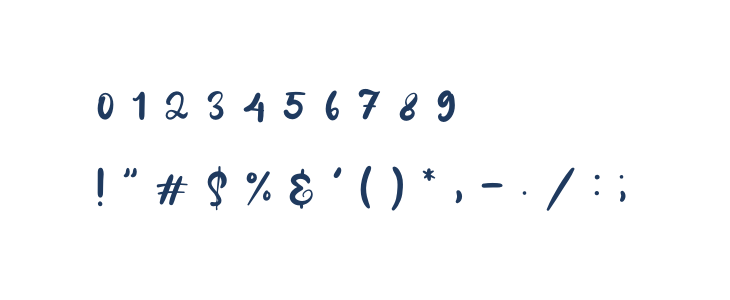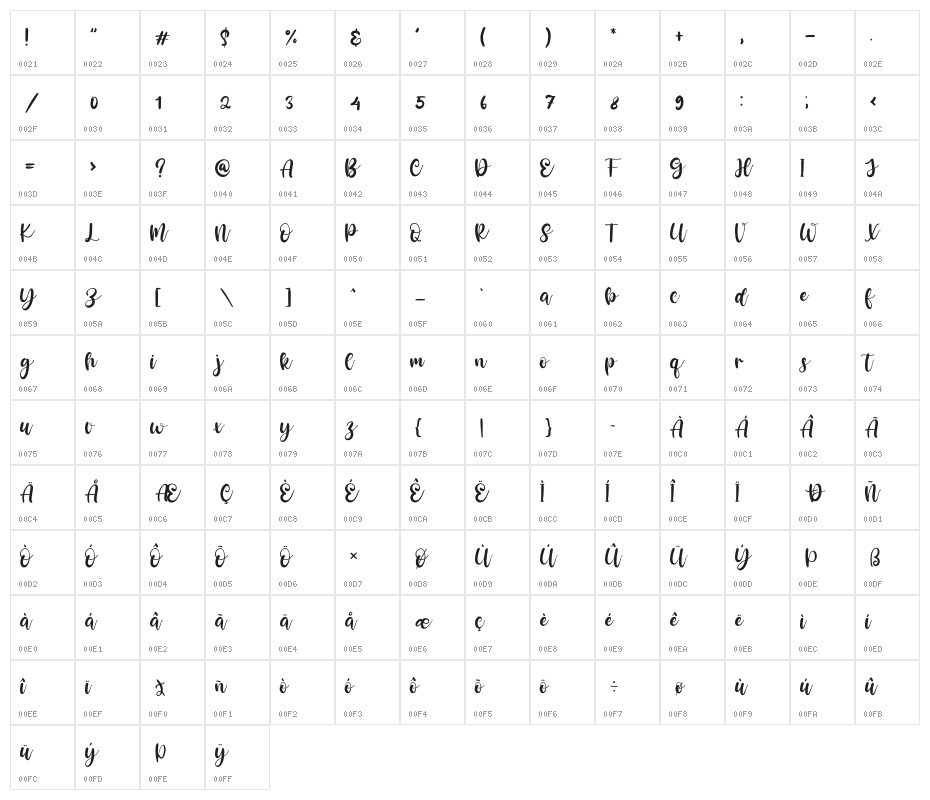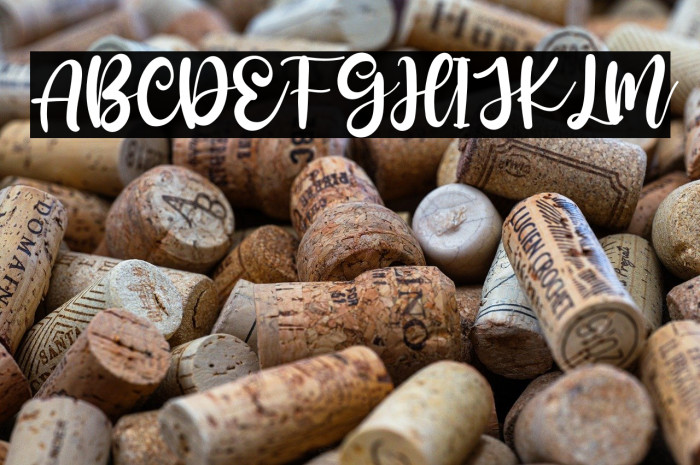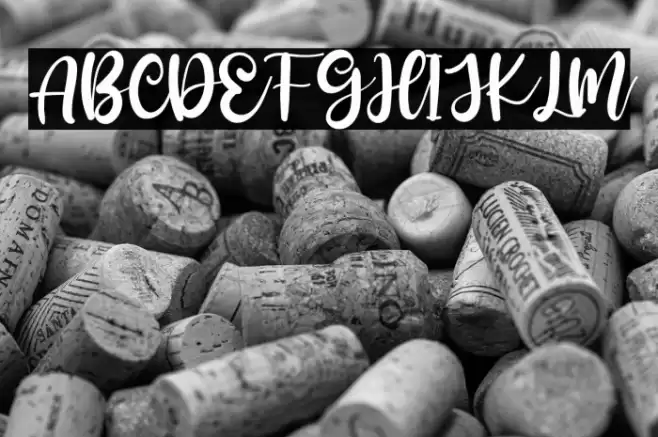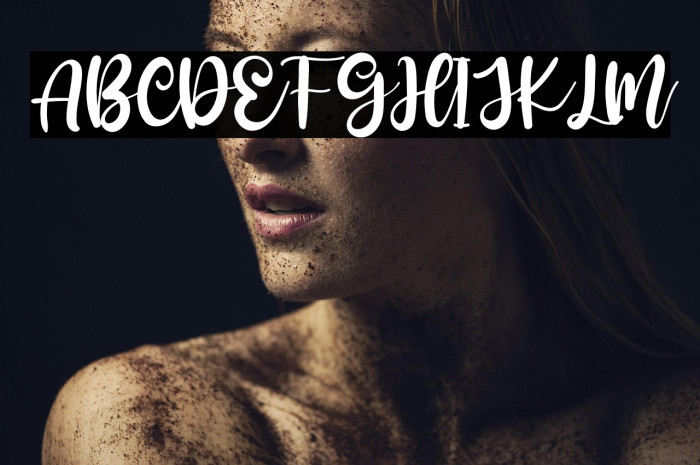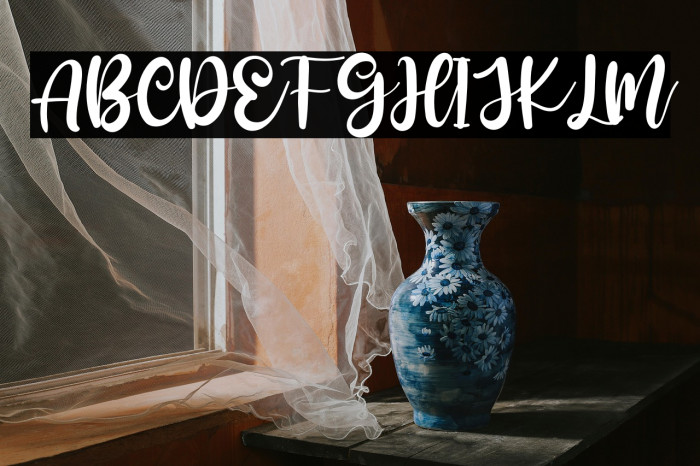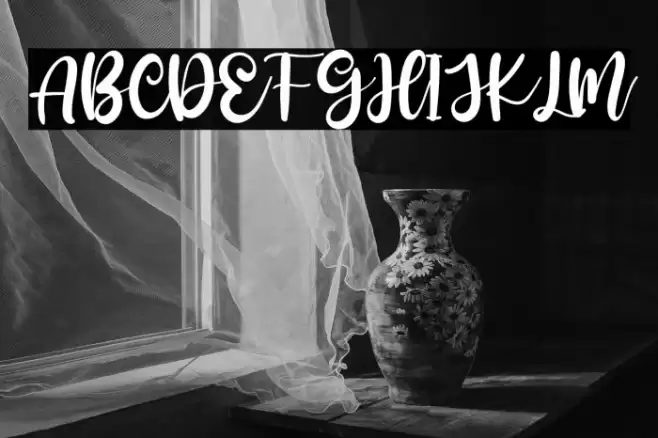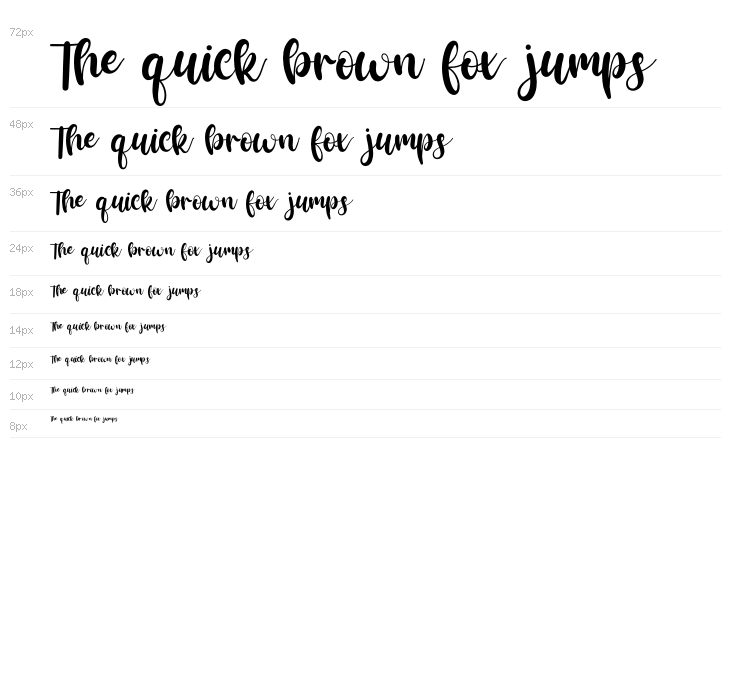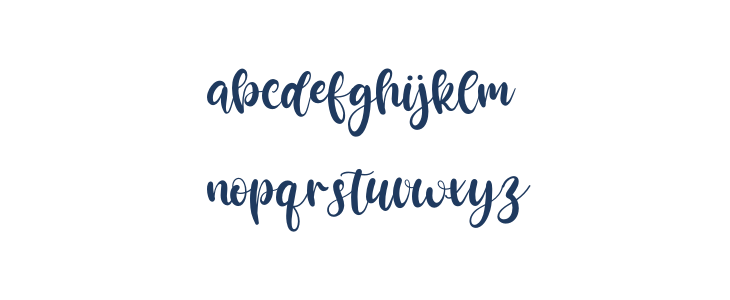
Rosanna Font
Rosanna Description
This font features a playful and elegant script style, characterized by its flowing, cursive letterforms. The strokes are smooth and rounded, with a consistent thickness that adds a sense of harmony and balance. The uppercase letters are bold and prominent, while the lowercase letters maintain a graceful and fluid appearance. The numerals and special characters complement the overall design, making it versatile for various applications. The font's whimsical nature is perfect for creative projects, adding a touch of sophistication and charm.